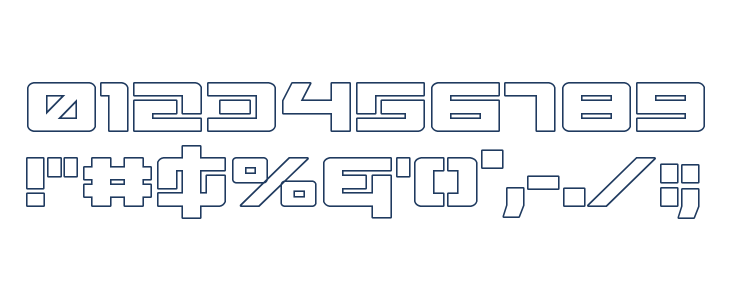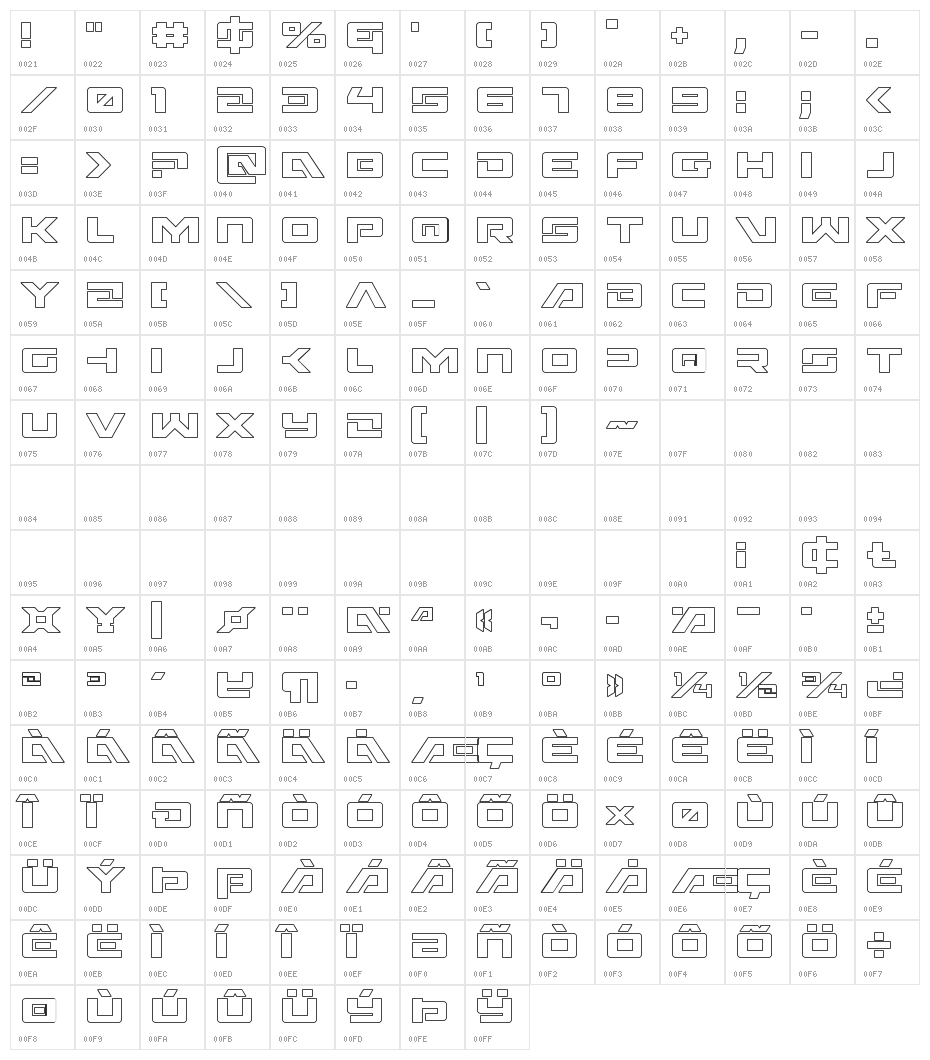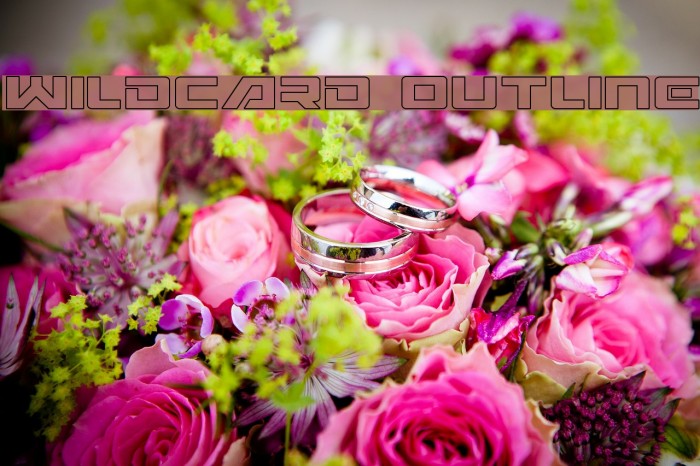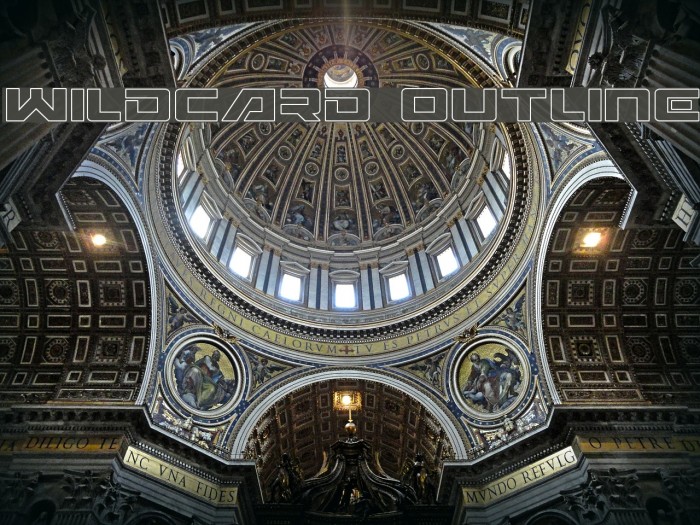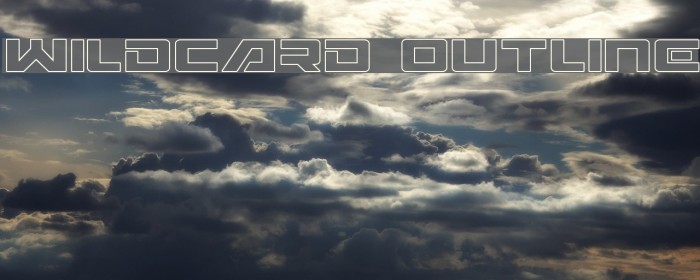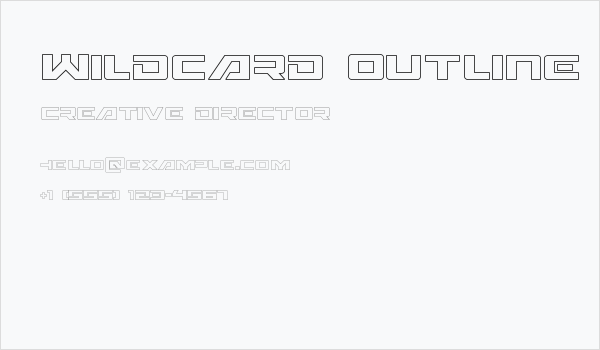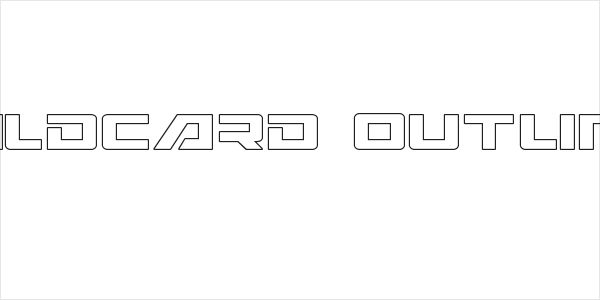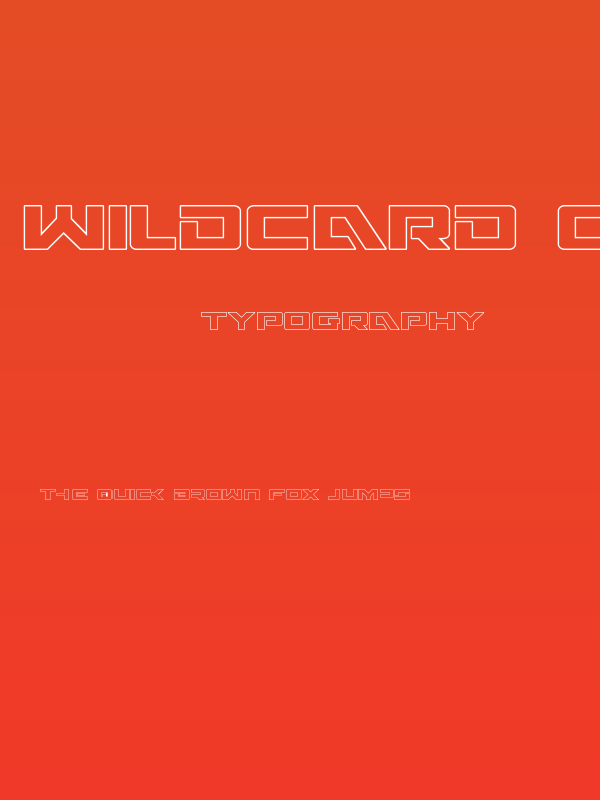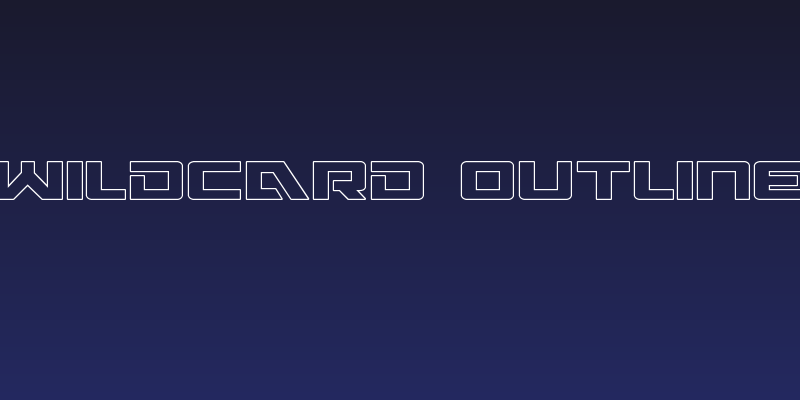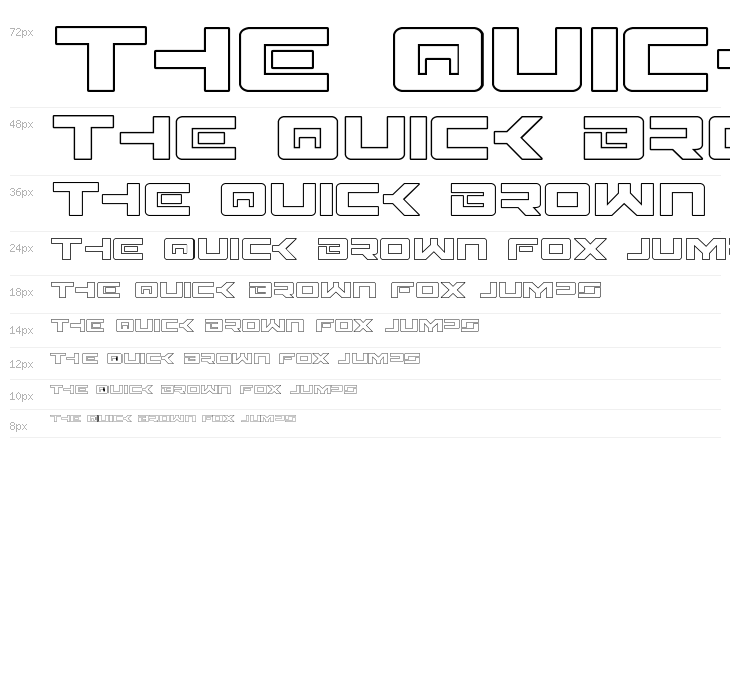
Wildcard Outline Font
Wildcard Outline Description
This font features a bold, geometric outline style that gives it a futuristic and modern appearance. Each character is crafted with precision, using straight lines and sharp angles to create a sense of structure and uniformity. The outline design allows for a unique visual effect, making the characters appear both solid and airy at the same time. This font is highly legible and stands out due to its distinct, clean lines and symmetrical forms. The uppercase and lowercase letters maintain a consistent style, while the numerals and special characters complement the overall design, ensuring versatility in various applications.